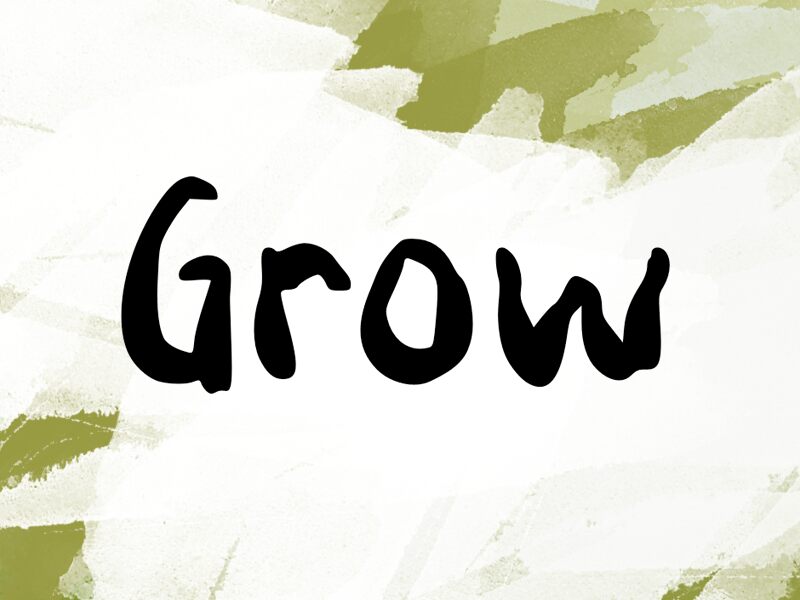
Grow
Grow is a dynamic and captivating display font that commands attention with its bold, organic forms. Designed by wep, this font exudes a sense of movement and energy, effortlessly blending modern and vintage aesthetics. The unique, hand-drawn-inspired strokes give Grow a distinct personality, conveying a sense of artistry and individuality.
This font's versatility shines through, making it a versatile choice for a wide range of design applications. From vibrant event posters and eye-catching product branding to impactful editorial layouts and captivating social media graphics, Grow's striking appearance can elevate any design project, adding an engaging and memorable touch.